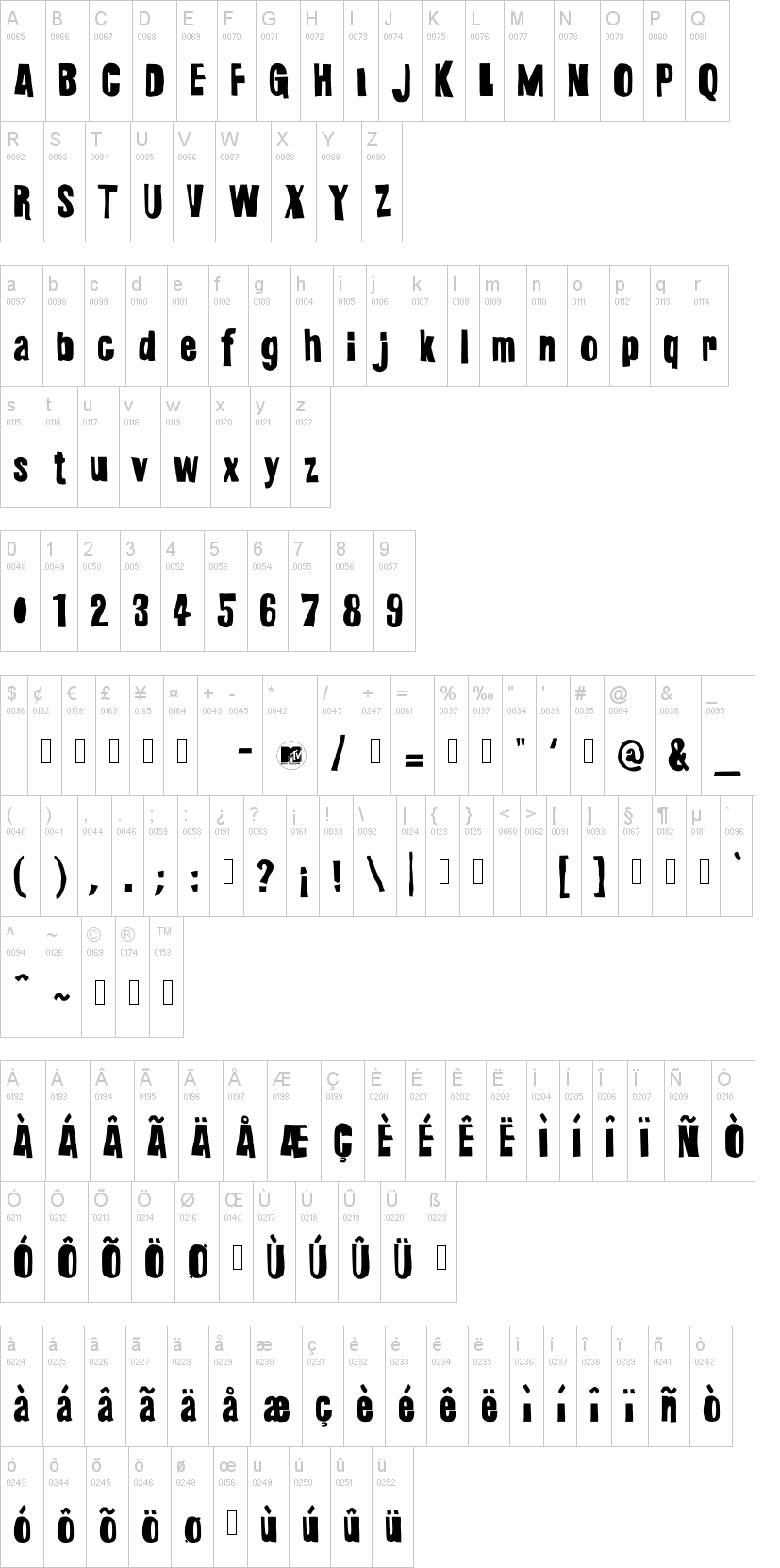
Note of the authorGrunge Bold is based on the distorted font used by MTV (mainly on 120 Minutes) from approximately 1993-1995. I've spent a long time piecing together multiple sources (recordings of 120 Minutes, etc.) in order to achieve the most accurate effect. Only if I couldn't find the character I was looking for I recreated it all the while staying true to the other characters' structure.